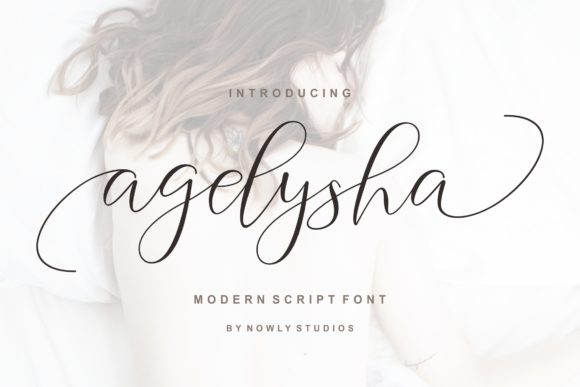
Prepare to be captivated by Agelysha Script Font, a calligraphy masterpiece that will infuse your designs with timeless elegance. This exquisite creation from nowlystudios is a testament to the beauty of handwritten artistry and will elevate your projects to new heights.
With Agelysha Script Font, you'll have at your fingertips a treasure trove of typographic possibilities. Experiment with its charming alternates, immerse yourself in the fluidity of its lines, and feel the magic unfold as each letter dances across your screen.
Agelysha Script Font is more than just a collection of characters; it's an invitation to unleash your creativity. Its delicate strokes and swirls bring a touch of sophistication to any project, making it perfect for logos, branding, invitations, and social media graphics. Imagine your words taking on a life of their own, captivating your audience with their elegance and grace.
Every curve, every stroke, every detail of Agelysha Script Font has been carefully crafted to evoke a sense of wonder and inspiration. Let your designs bloom with creativity as you explore the endless possibilities of this enchanting font.